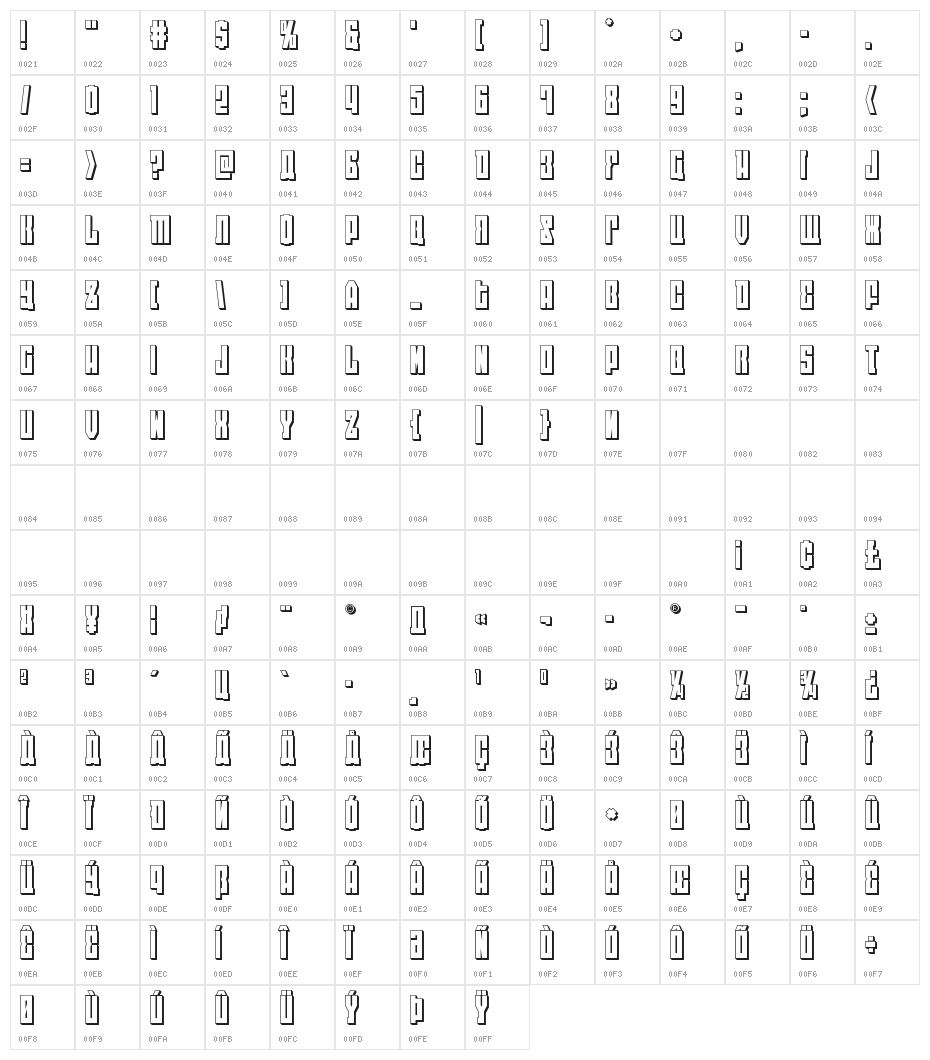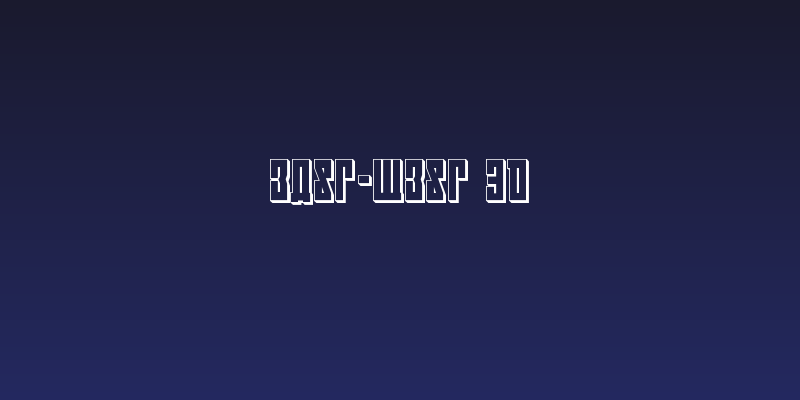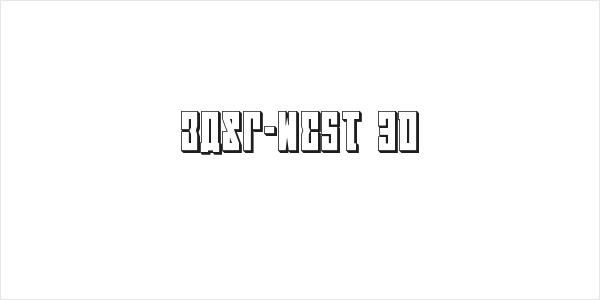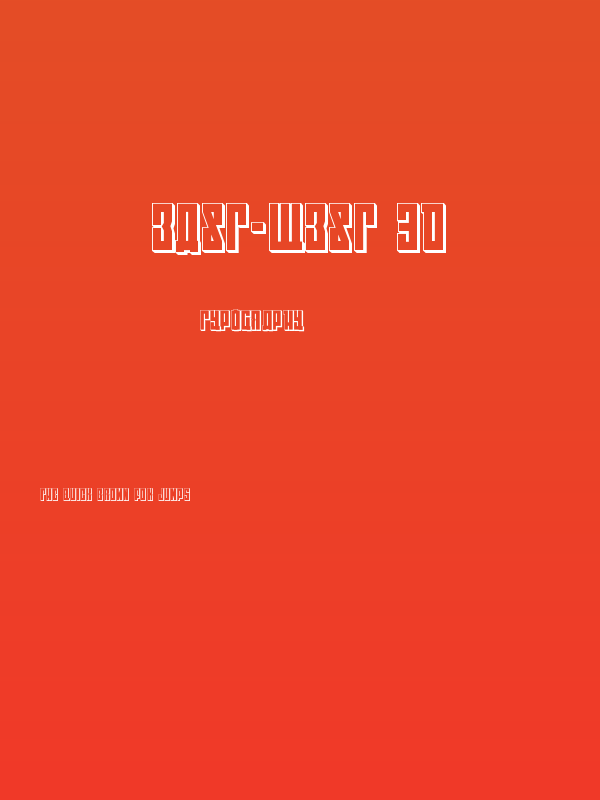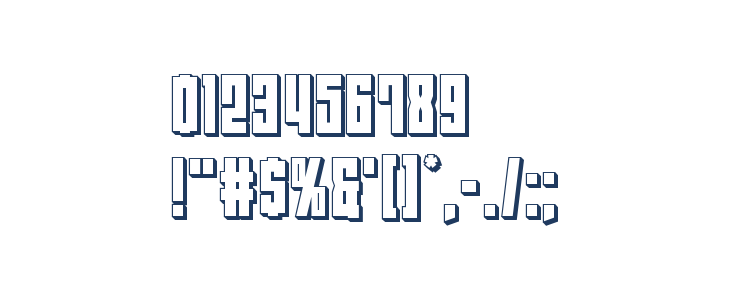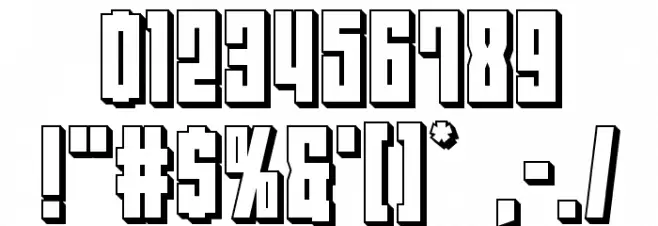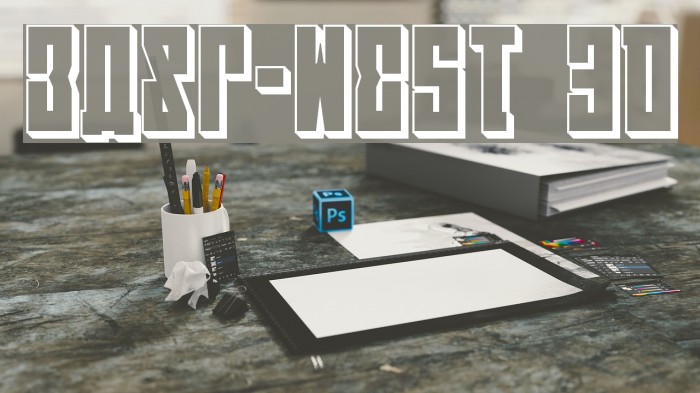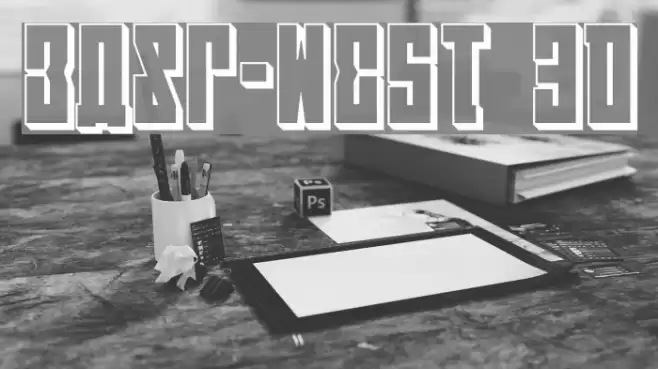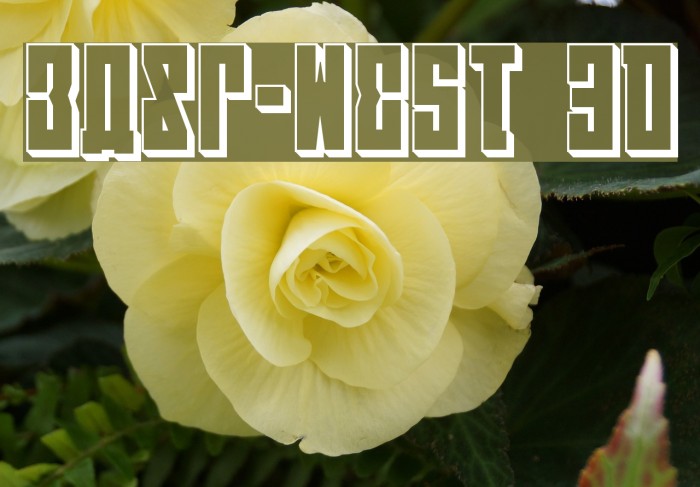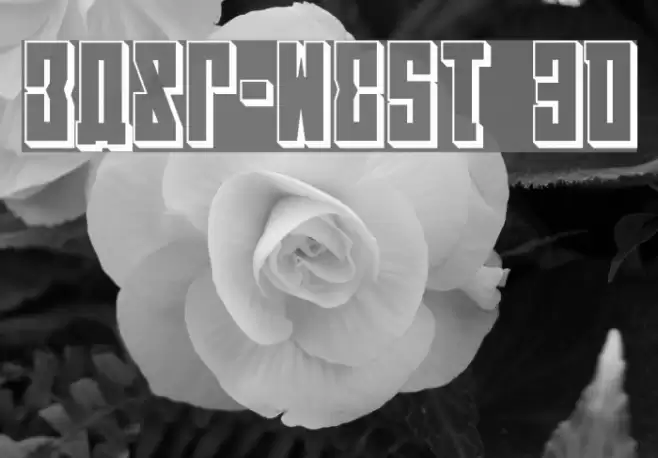
EAST-west 3D Font
This bold and striking font features a three-dimensional effect that gives it a strong, impactful presence. The characters are blocky and geometric, with a shadow that enhances the 3D illusion. The uppercase letters are particularly prominent, while the lowercase letters maintain the same bold style. The numbers and special characters are consistent with the overall design, making the font versatile for various uses. The thick outlines and sharp angles contribute to its modern and edgy appearance, making it suitable for attention-grabbing headlines and logos.
EAST-WEST-3D UPPERCASE
EAST-WEST-3D LOWERCASE
EAST-WEST-3D OTHER CHARS